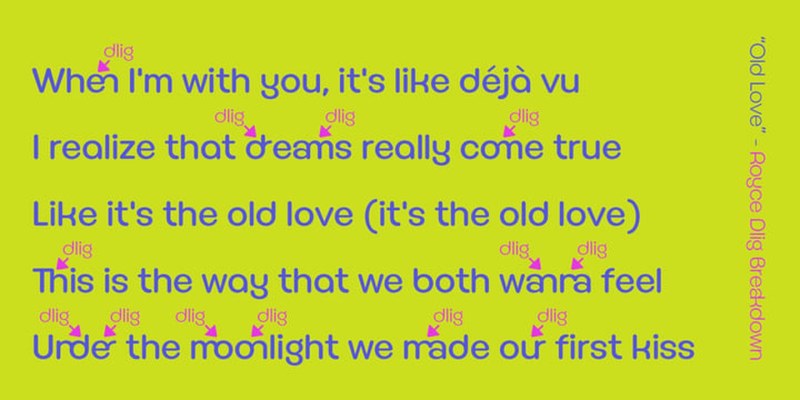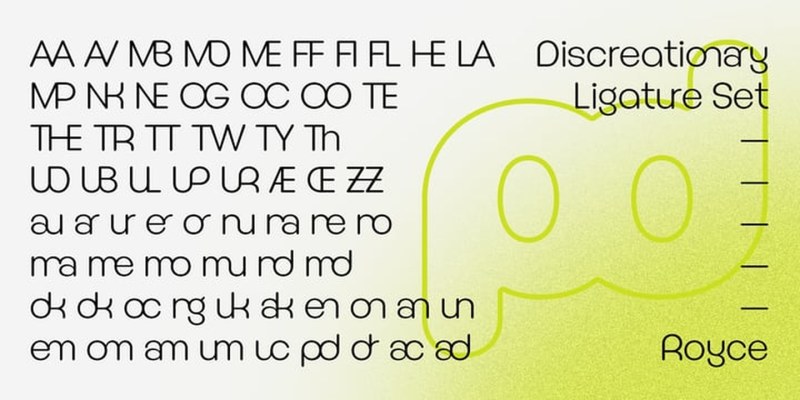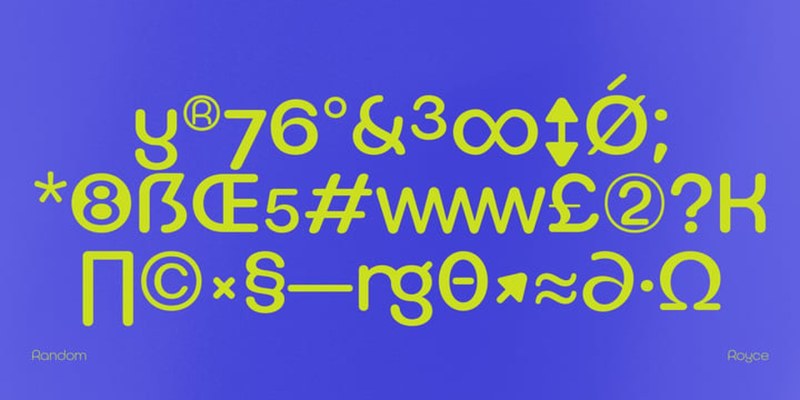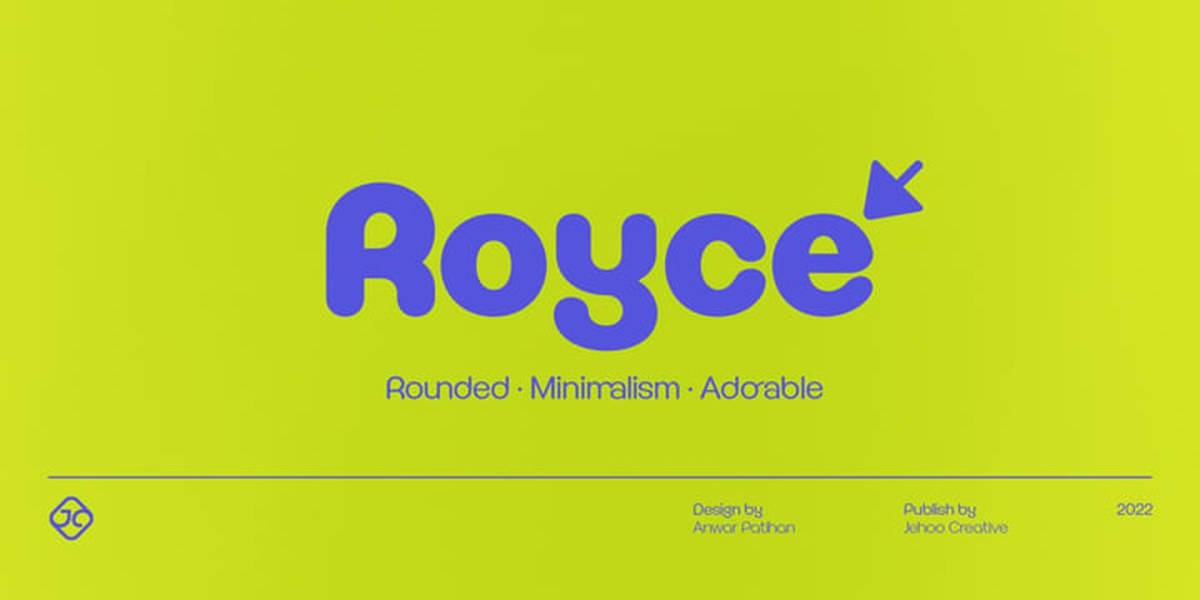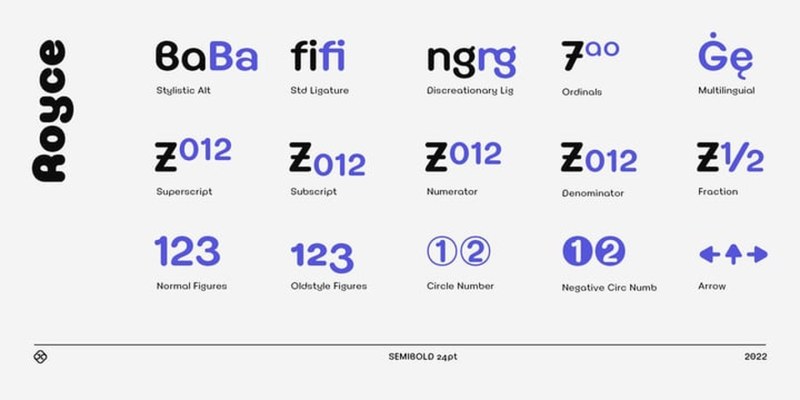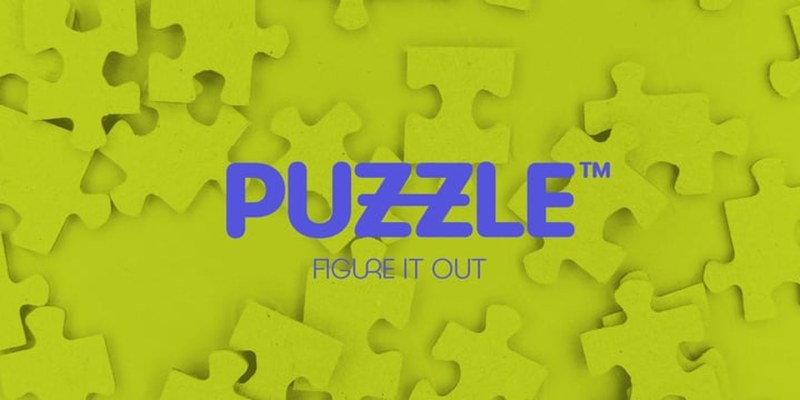
Royce Font Family
Royce is a cute and minimalist designed font family with rounded edges on each character to make a fun and modern impression on your designs. It is very easy to combine this font with other types because it comes with 10 complete weights ranging from thin to extrablack, with a modern impression Royce has many useful features for example Alternate which is more formal in feel and Discretionary Ligature which is very eye-catching so it is ready to be used for various kinds design types such as displays, titles, body text, magazines, cover art, social media, logos, web Ui, clothing, posters, and others.
Royce Font Family is a Font Family font that brings a professional and versatile look to your projects. Royce is a cute and minimalist designed font family with rounded edges on each character to make a fun and modern impression on your designs.